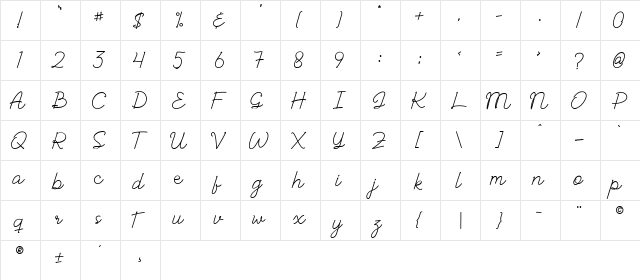
Albelia Script
| Style | Script |
| Foundry | wachied |
Design Context for Albelia Typeface
Albelia brings a calligraphic fluidity to the page — its connecting strokes and expressive curves give it an unmistakably human quality.
Font Pairing: Combine Albelia with a simple geometric sans for maximum contrast — the tension between flowing curves and clean structure is a classic typographic pairing.
Pro Tip: Use Albelia for short runs of text — names, titles, or taglines. Extended body copy in script faces tires the eye quickly.